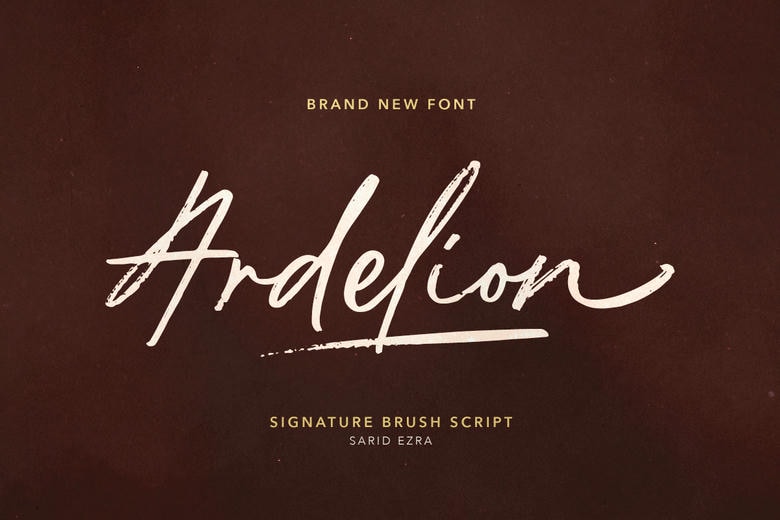
Ardelion Font
Ardelion is a signature script with textured brush that contain stylistic alternate, underline, and ligatures to create personal all over signature or logo looks. Ardelion You could use this typeface to come up with a logo for branding purposes, lovely fashion designing, perfect for a wedding invitation or to write a personally crafted quote.
Ardelion Signature Brush Script Font